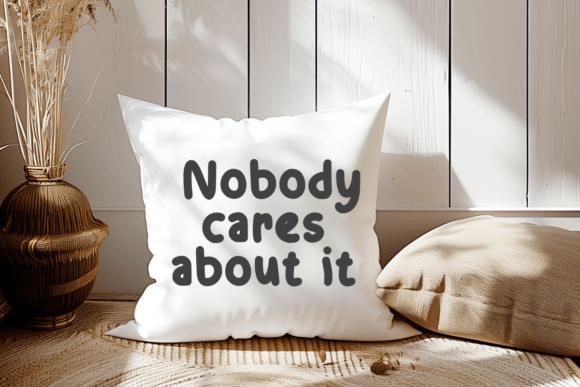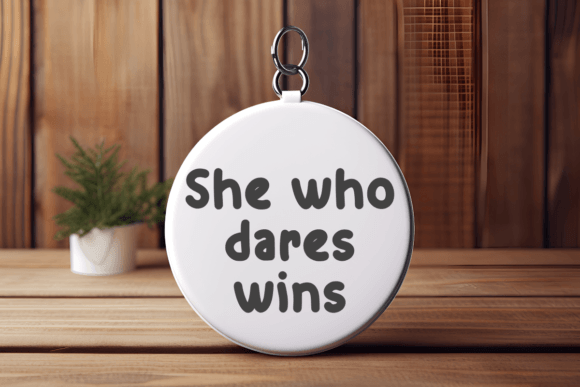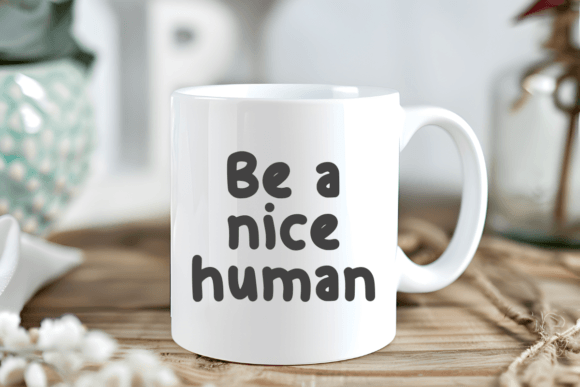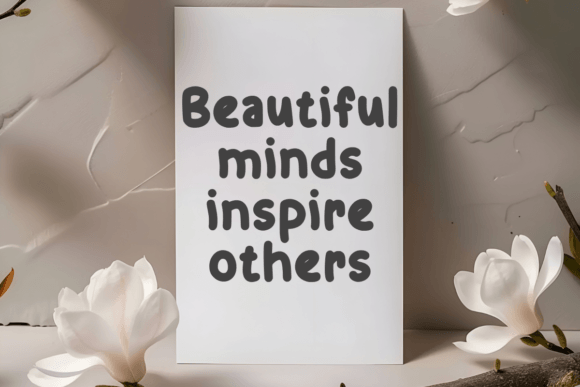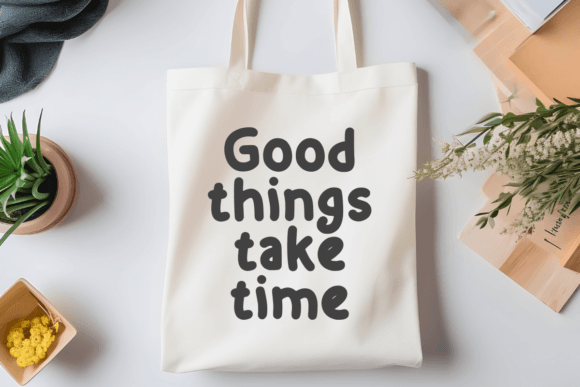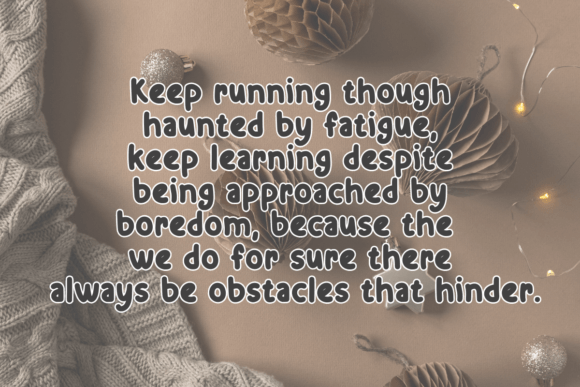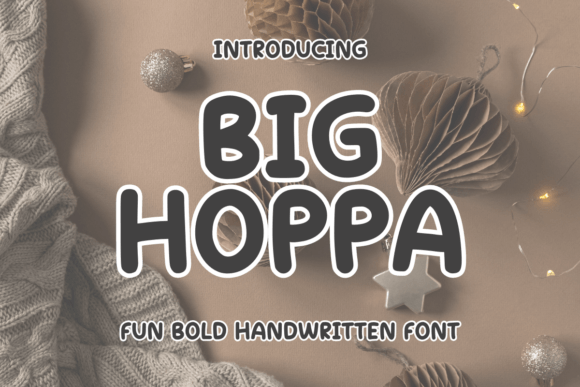
Unlock the Power of Whimsy with Big Hoppa Font
Have you ever sat at your desk, staring at a blank page or screen, trying to bring a creative idea to life? It’s that moment when the perfect font can be the difference between a lackluster design and a masterpiece. For designers, the right font can elevate a project from mundane to magical.
Enter the Big Hoppa Font, a bold and cute handwritten font that is sure to add a touch of whimsy to any creation. Whether you’re designing a children’s book, a marketing campaign, or a personal project, Big Hoppa Font has the potential to bring your vision to life. Its unique character and versatility make it an invaluable asset to any designer’s library, and a must-have for anyone looking to add a little extra flair to their work.
Key Features of Big Hoppa Font
- Font Family: Big Hoppa Font comes in two font families: Regular and Bold.
- Font Size: Supports font sizes from 8 to 120 points, making it suitable for various design applications.
- Resolution: Optimized for high-resolution displays (Retina and 4K) with clear and crisp typography.
- Unique Characteristics: Big Hoppa Font features a playful, energetic, and dynamic feel, perfect for designs that require a touch of whimsy and fun.
Big Hoppa Font Review
Overall, I think Big Hoppa Font is a decent choice for designers looking for a playful, energetic feel. It’s got a lot of charm and would be perfect for projects that need a little extra oomph. ✨
- Highly customizable – Big Hoppa Font comes in a variety of weights, from light to bold, allowing designers to fine-tune their project’s aesthetic.
- Playful, energetic feel – As I mentioned earlier, this font is perfect for projects that need a bit of whimsy.
- Good for titles and headings – Big Hoppa Font shines when used for titles and headings, adding a touch of personality to your design.
- Not ideal for body text – Big Hoppa Font can be a bit overwhelming when used for large blocks of text, making it difficult to read.
- May not be suitable for formal projects – The playful feel of Big Hoppa Font might not be the best fit for formal or professional projects.
- May require additional styling – Depending on the project, you may need to add additional styling or effects to get the most out of Big Hoppa Font.
Big Hoppa Font is a fun, energetic font that’s perfect for projects that need a bit of personality. While it has its limitations, it’s a great choice for designers looking to add a playful touch to their work.
Tips for Getting the Most Out of Big Hoppa Font
Big Hoppa Font is perfect for:
- Creative and playful designs.
- Web design and digital media.
Big Hoppa Font can be used in a variety of contexts, including:
- Logo design.
- Business cards.
- Social media graphics.